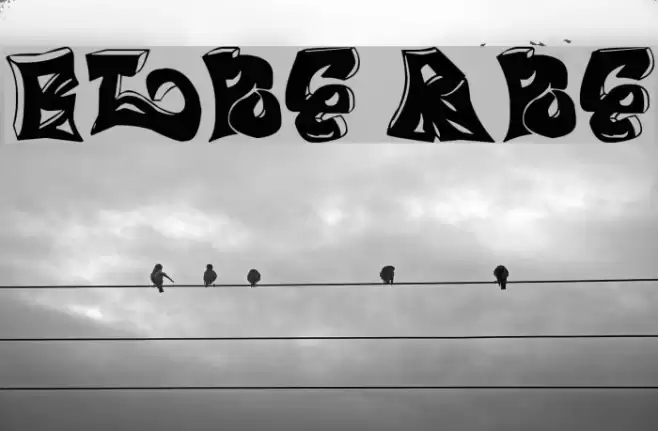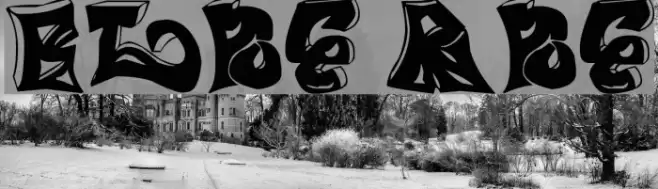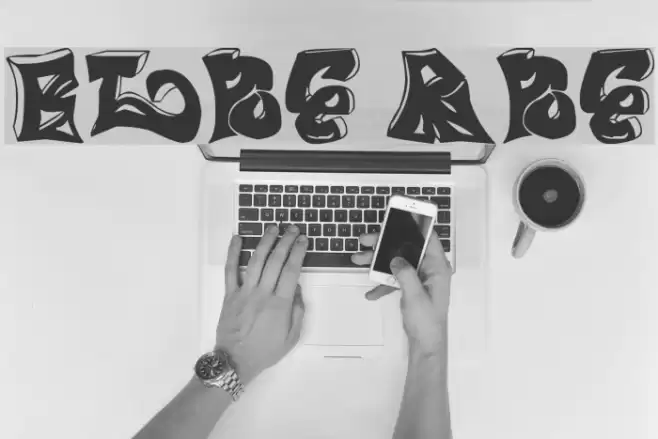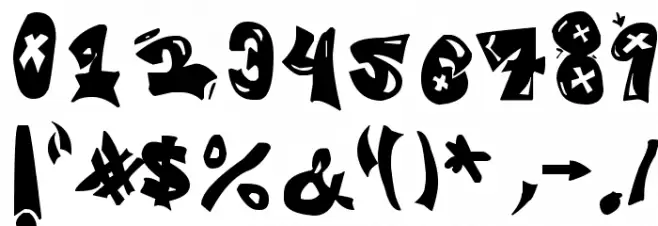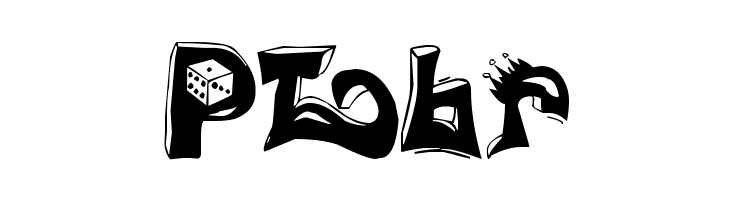
BLiNG RiNG Font
BLiNG RiNG Description
This font is a bold and playful decorative style with a graffiti-like appearance. Each character is uniquely designed with exaggerated features, incorporating various graphic elements such as crowns, dots, and abstract shapes. The letters have a three-dimensional effect, giving them a dynamic and eye-catching look. The font is highly stylized, with each character having its own distinct personality, making it suitable for creative and unconventional design projects. The numbers and special characters follow the same whimsical and artistic theme, ensuring consistency throughout the typeface.
A bold, graffiti-inspired decorative font with unique, playful characters from Uncategorized fonts.
- Proposed Projects: Ideal for street art designs, music album covers, posters, and creative branding projects.
- Overall Style: Modern, Artistic
- Use Case: Logos, Posters, Creative Branding